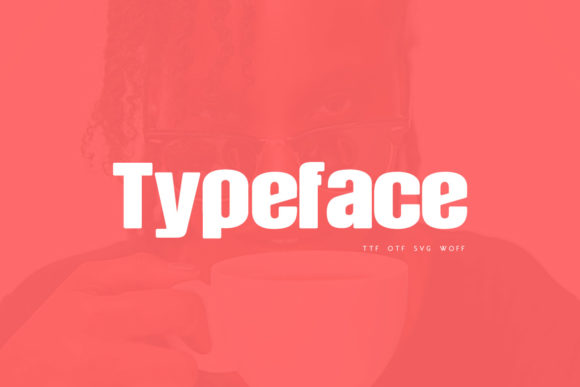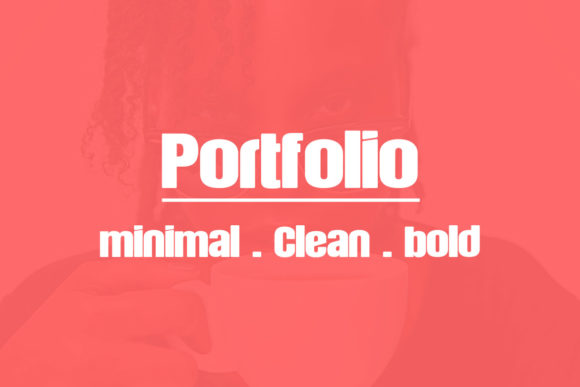
Introducing Colinor Font: The Ultimate Display Font for Modern Designs
In the world of typography, fonts play a crucial role in making or breaking a design. A well-chosen font can elevate your project, making it stand out from the crowd, while a poorly chosen one can make it look dull and unappealing. For designers and crafters looking for a unique touch, Colinor Font is an excellent choice. This cool, modern, and thick lettered display font is ideal for writing web designs, business cards, or pretty much anything else that requires a bold statement.
What is Colinor Font?
Colinor Font is a display font designed to make a lasting impression. Its thick, bold letters are perfect for creating eye-catching headlines, titles, and captions. The font’s modern design ensures that it stays ahead of the curve, making it suitable for contemporary designs. Whether you’re working on a web project, a business card, or a marketing material, Colinor Font is sure to grab attention.
Key Features of Colinor Font
• Unique and Modern Design: Colinor Font boasts a unique and modern design that sets it apart from other fonts. Its thick letters give it a bold and confident look.
• Versatile: This font is versatile and can be used for various design projects, including web designs, business cards, brochures, and more.
• Easy to Read: Despite its bold design, Colinor Font is easy to read, making it perfect for use in titles, headings, and captions.
• High-Quality: Colinor Font is a high-quality font designed to ensure that your designs look professional and polished.
Why Choose Colinor Font?
There are many reasons why designers and crafters should choose Colinor Font for their projects. Here are a few:
• Stand Out from the Crowd: With Colinor Font, you can create designs that stand out from the crowd. Its unique and modern design ensures that your project gets noticed.
• Save Time: With a font like Colinor, you don’t have to spend hours designing a custom font or searching for the perfect one. This font is ready to use and can save you a significant amount of time.
• Professional Look: Colinor Font gives your designs a professional look, making it perfect for business projects, marketing materials, and more.
How to Use Colinor Font
Using Colinor Font is easy. Here are a few tips to get you started:
• Pair it with Other Fonts: Colinor Font pairs well with other fonts, making it easy to create a unique and visually appealing design.
• Use it for Headings and Titles: This font is perfect for use in headings and titles. Use it to create eye-catching captions and headlines.
• Experiment with Colors: Colinor Font looks great in various colors. Experiment with different colors to find the one that works best for your design.
Who Can Benefit from Colinor Font?
Colinor Font is an excellent choice for various designers and crafters, including:
• Graphic Designers: Graphic designers can use Colinor Font to create stunning visual designs, including brochures, posters, and more.
• Web Designers: Web designers can use this font to create modern and visually appealing websites.
• Crafters: Crafters can use Colinor Font to create beautiful crafts, including handmade cards, gift tags, and more.
In conclusion, Colinor Font is an excellent choice for designers and crafters looking for a unique and modern display font. Its thick, bold letters make it perfect for creating eye-catching headlines, titles, and captions. With its versatility, ease of use, and high-quality design, Colinor Font is sure to become a staple in your font collection. So, why wait? Download Colinor Font today and take your designs to the next level!